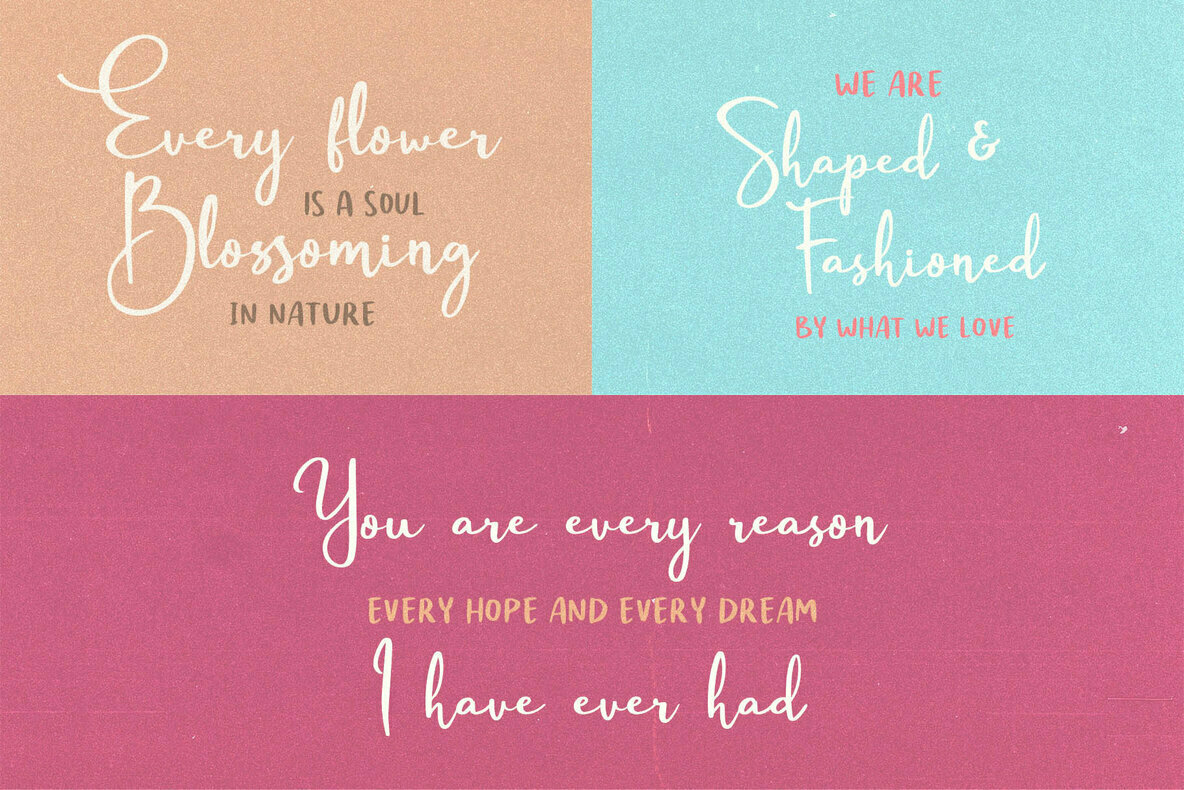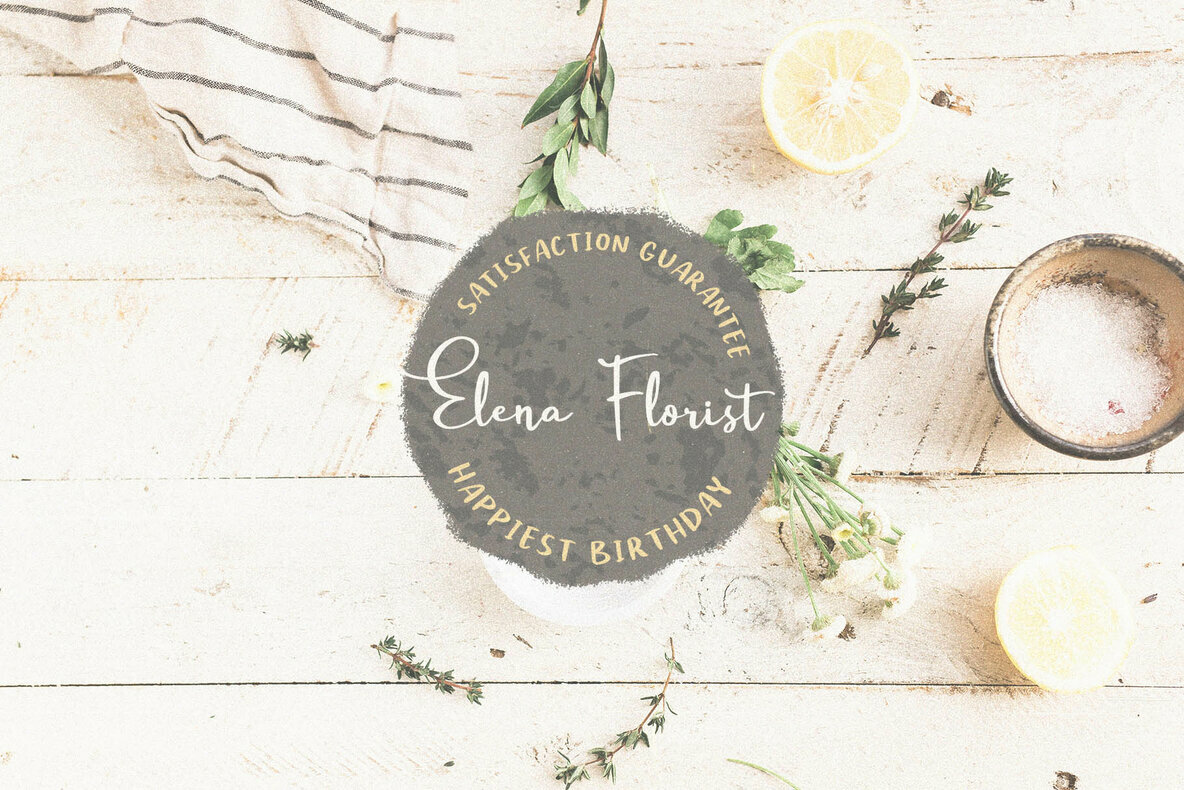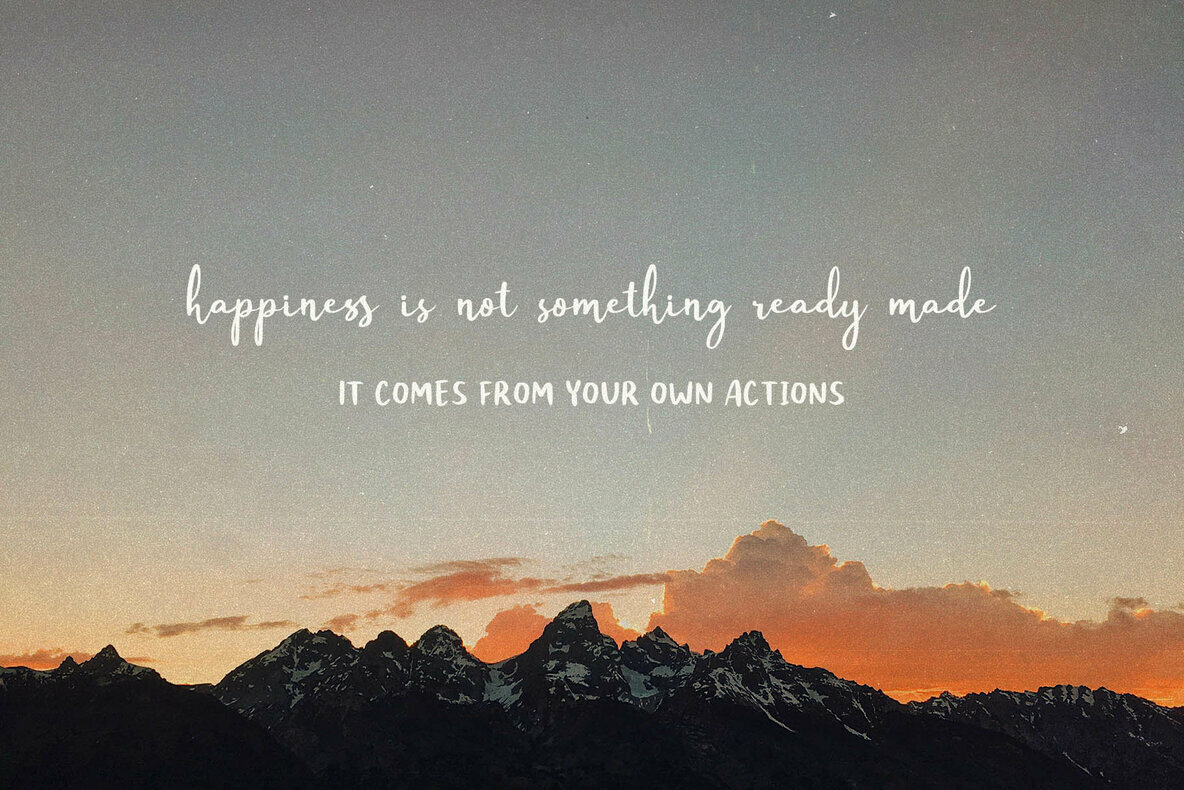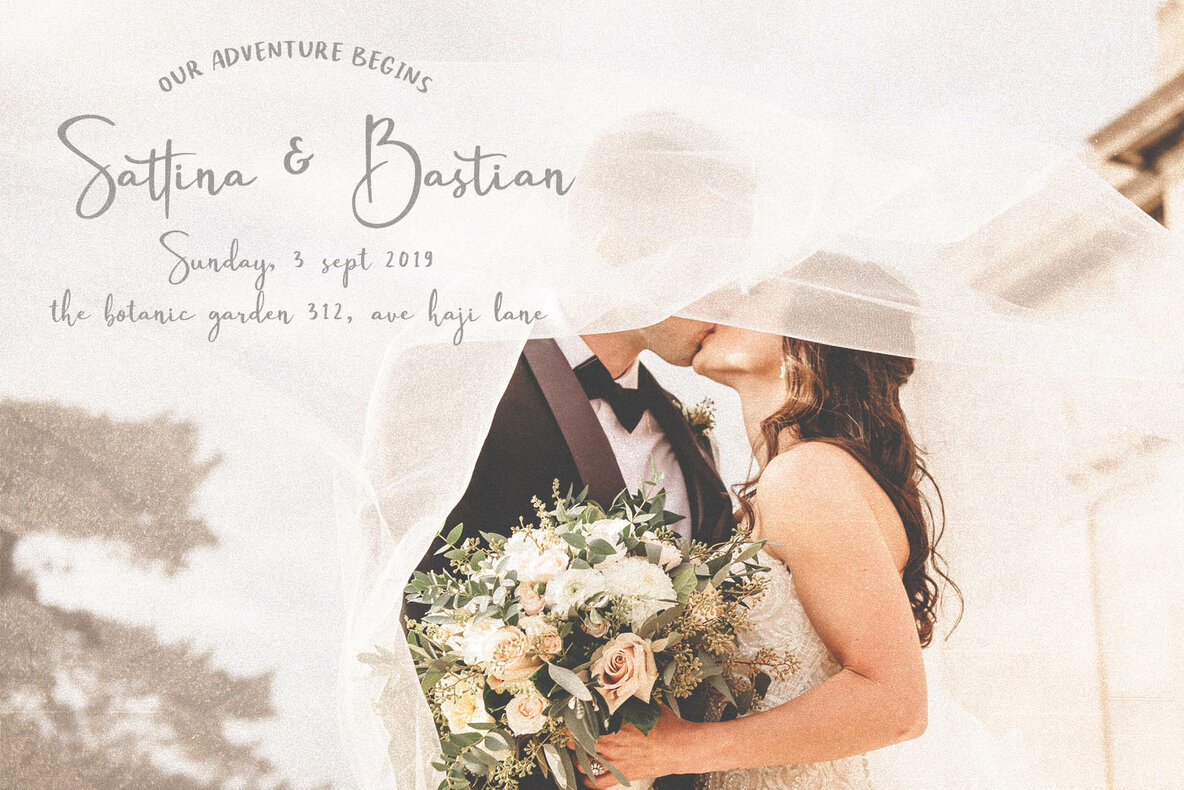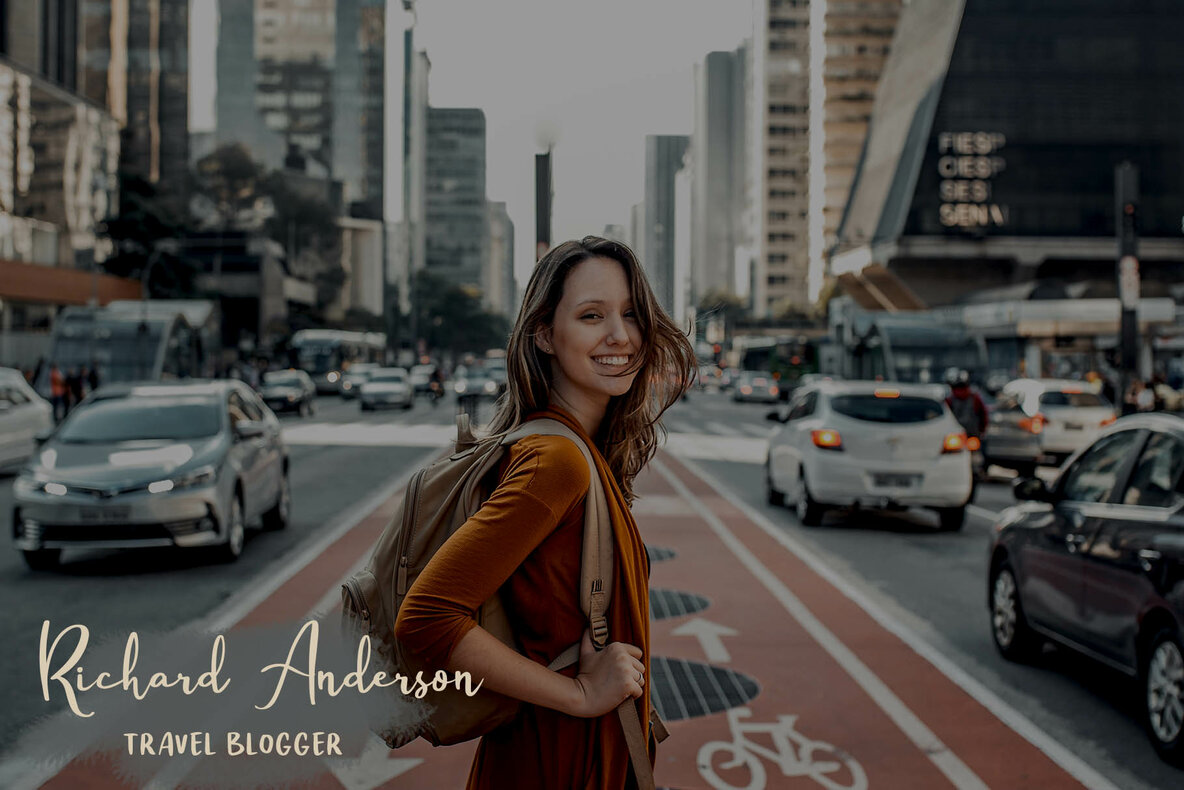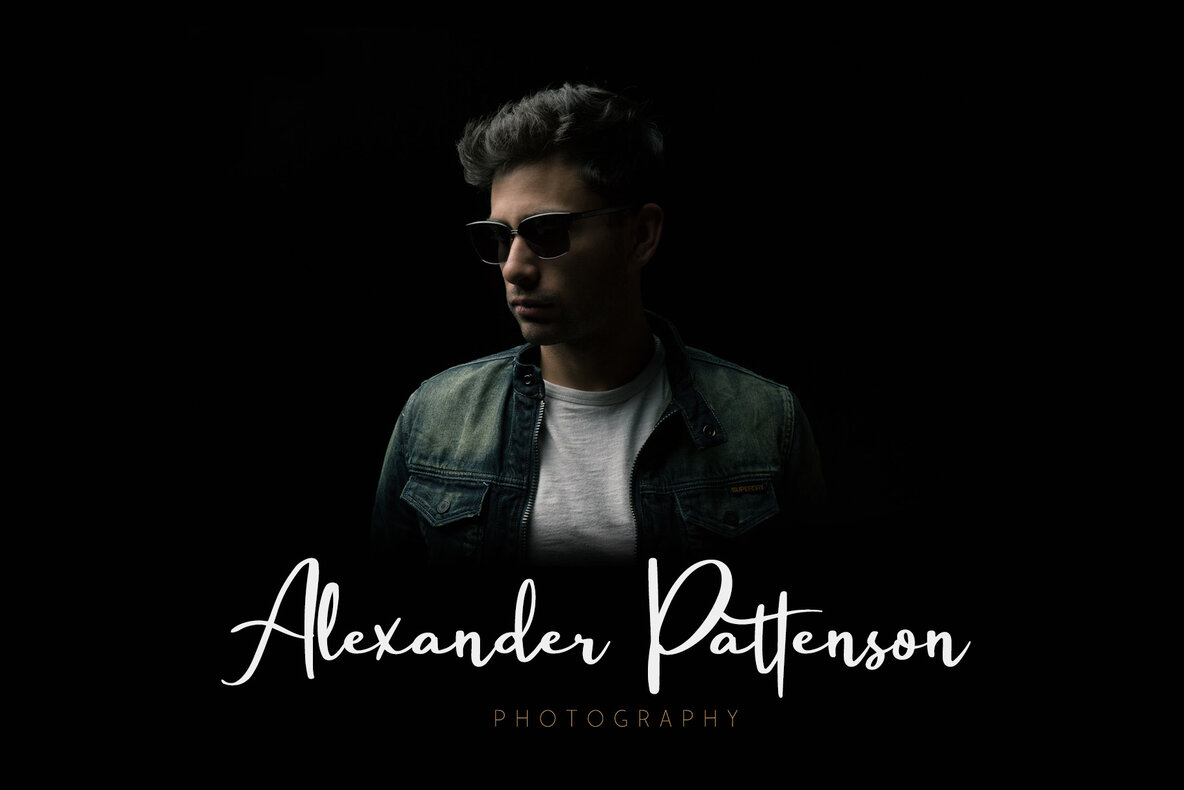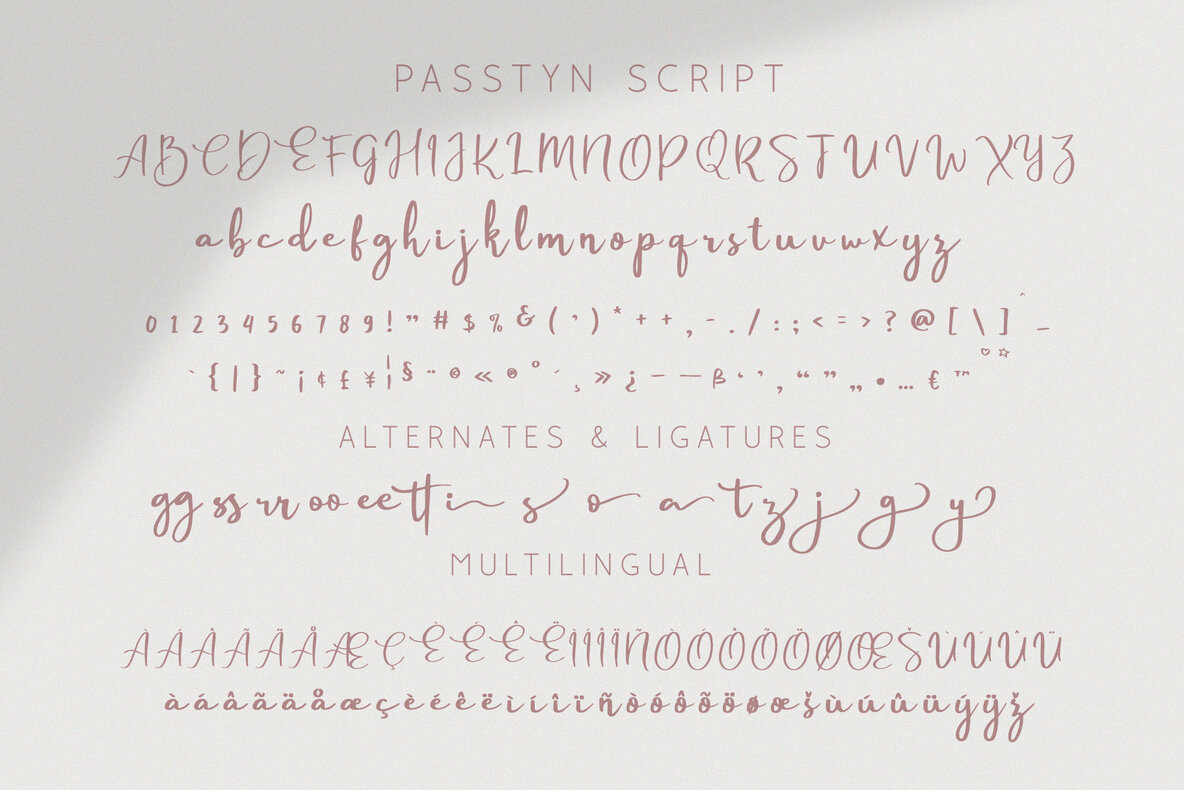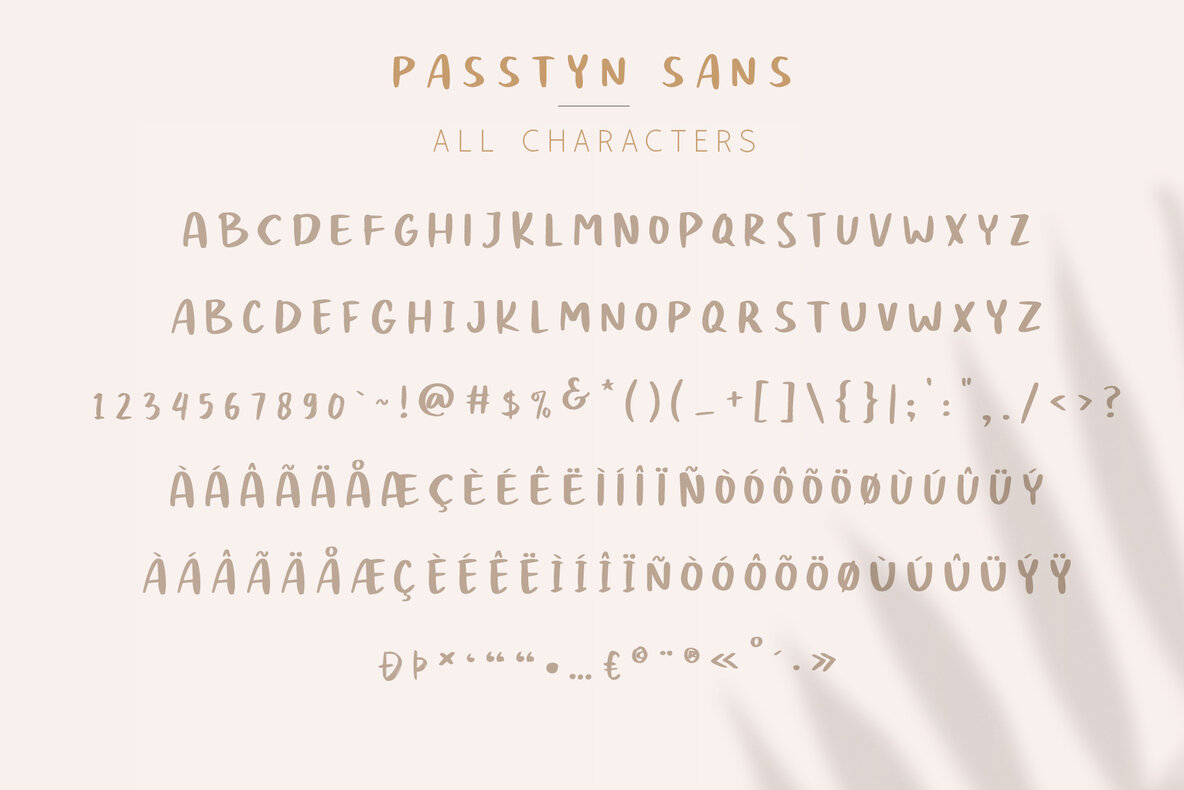
Passtyn Font Duo
The Passtyn Font Duo by Craft Supply Co. embraces the authentic essence of handwritten style. With the Passtyn and Larissa fonts, designers can evoke a sophisticated and chic aesthetic, perfect for a variety of creative projects. Whether you're crafting a wedding boutique's brand identity or composing a thoughtful art quote, this font duo brings both elegance and a modern flair to your designs.Passtyn Font Duo: A Fusion of Elegance and Versatility